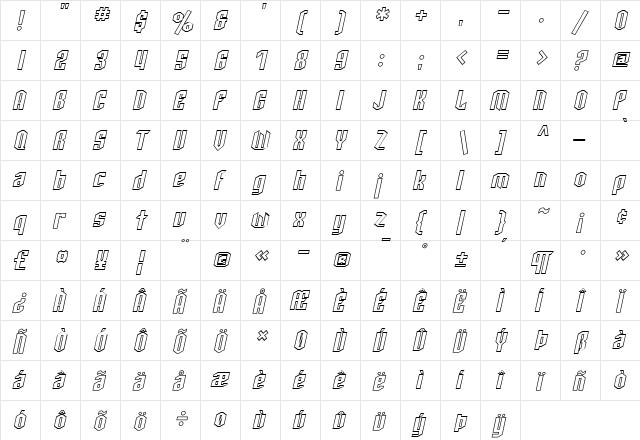
SF Archery Black Outline Oblique
Design Context for SF Archery Black Outline Typeface
SF Archery Black Outline brings ornamental detail and strong personality to headlines and identities, where visual impact matters more than quiet functionality. The slanted form adds forward momentum and visual energy.
Font Pairing: Pair with a clean neutral sans-serif for body copy to let SF Archery Black Outline's character lead without overwhelming the composition.
Pro Tip: Treat SF Archery Black Outline as the centrepiece of your typographic hierarchy. One strong heading set in a decorative face can carry an entire layout.